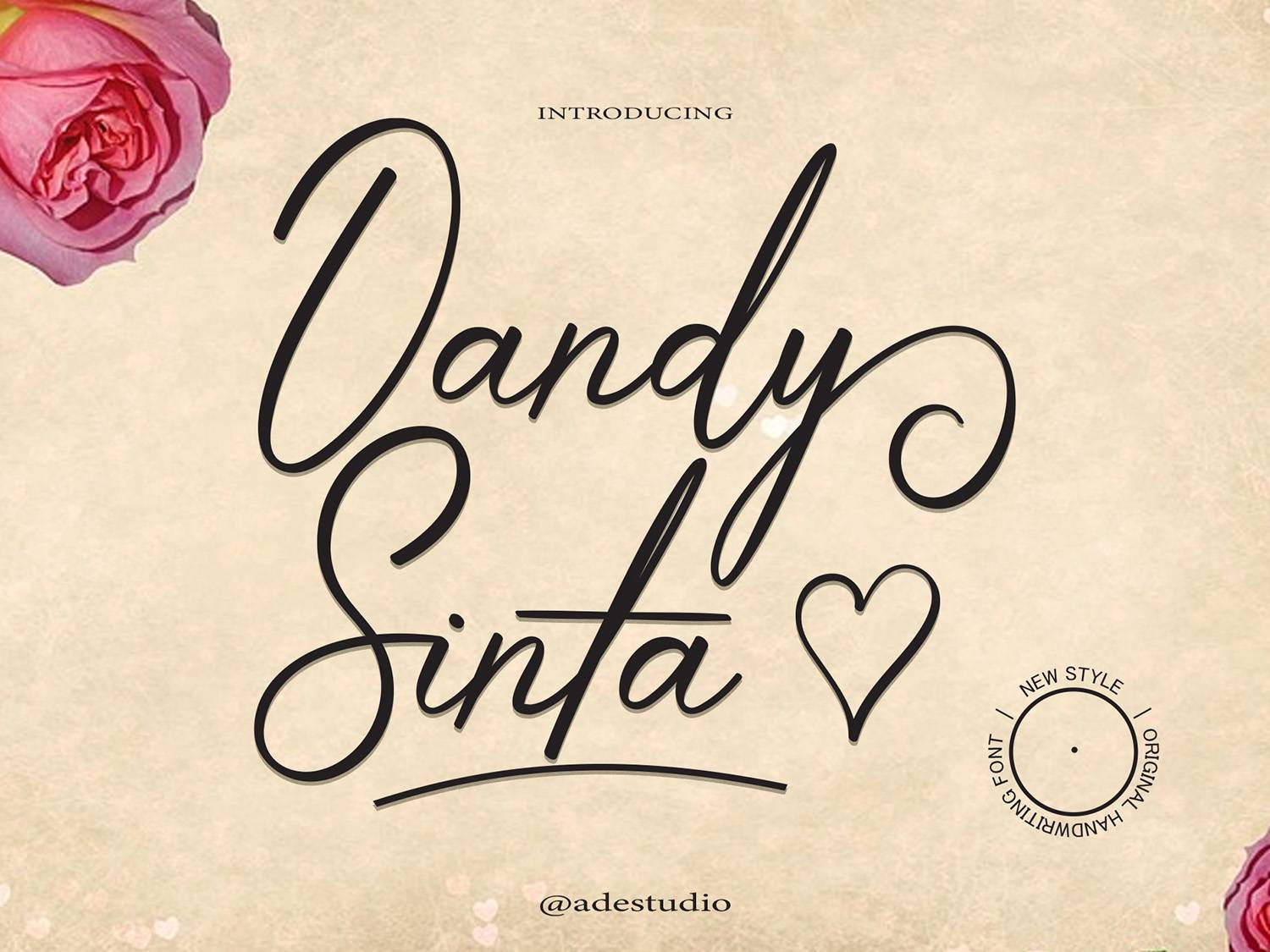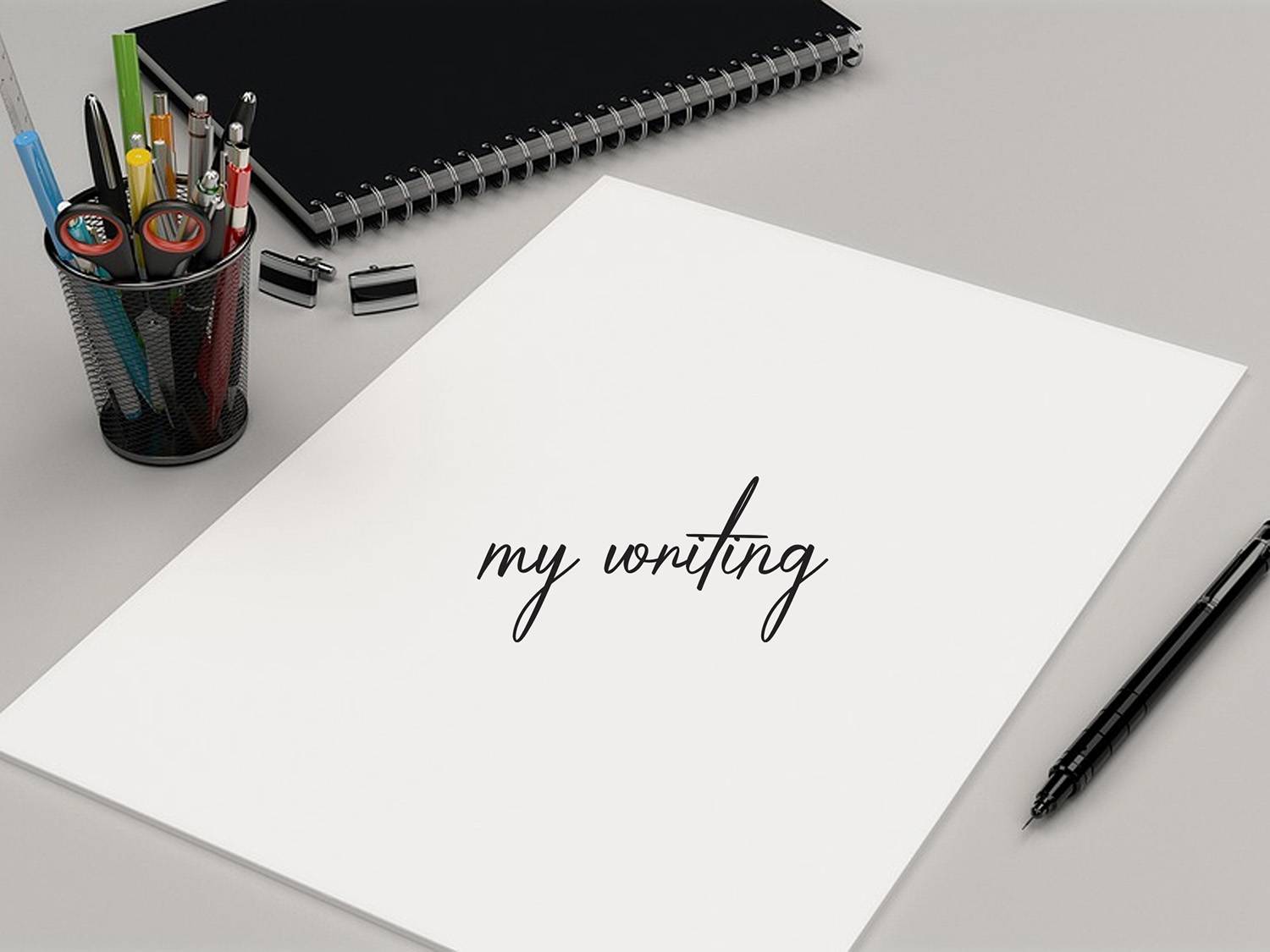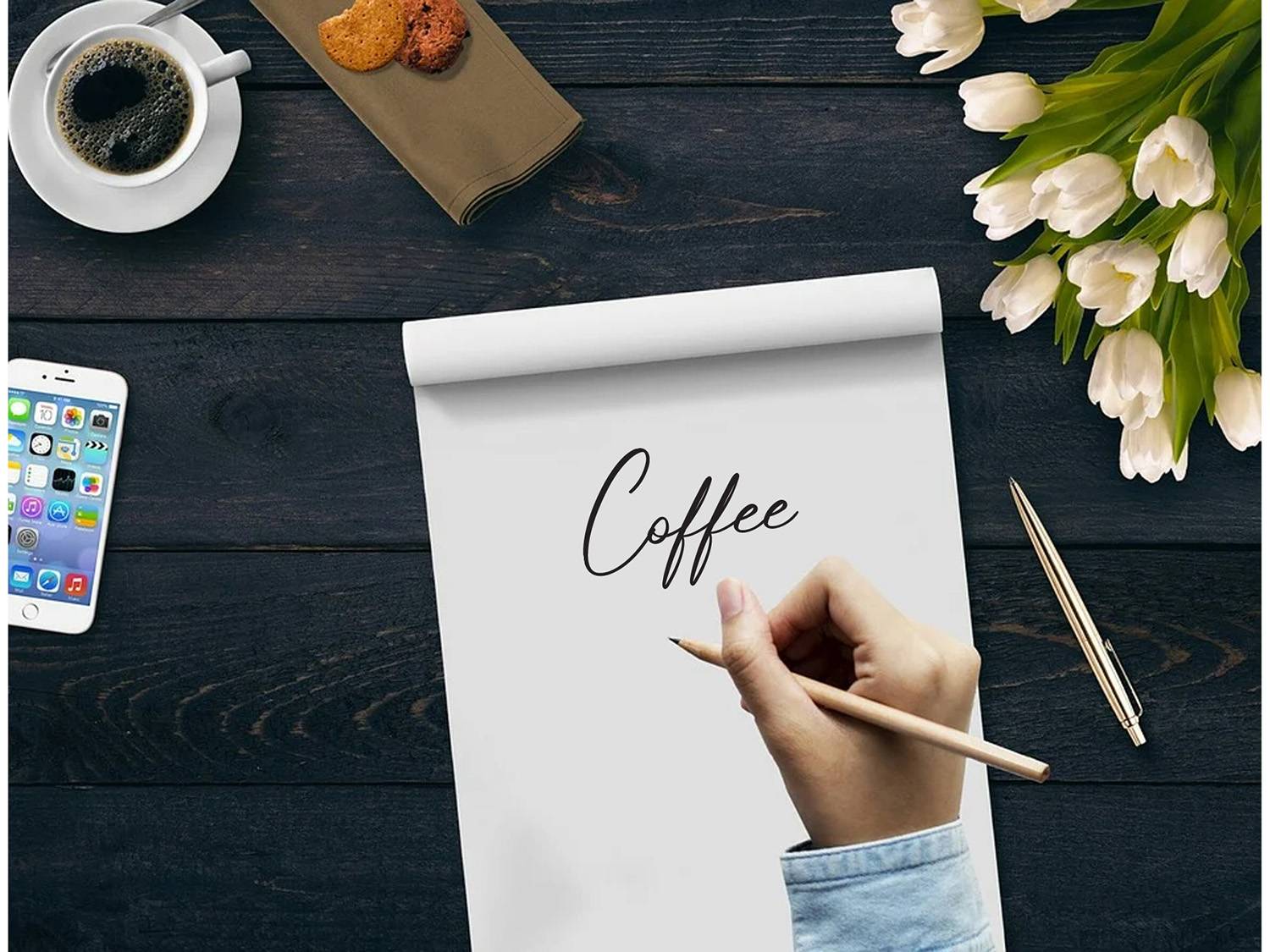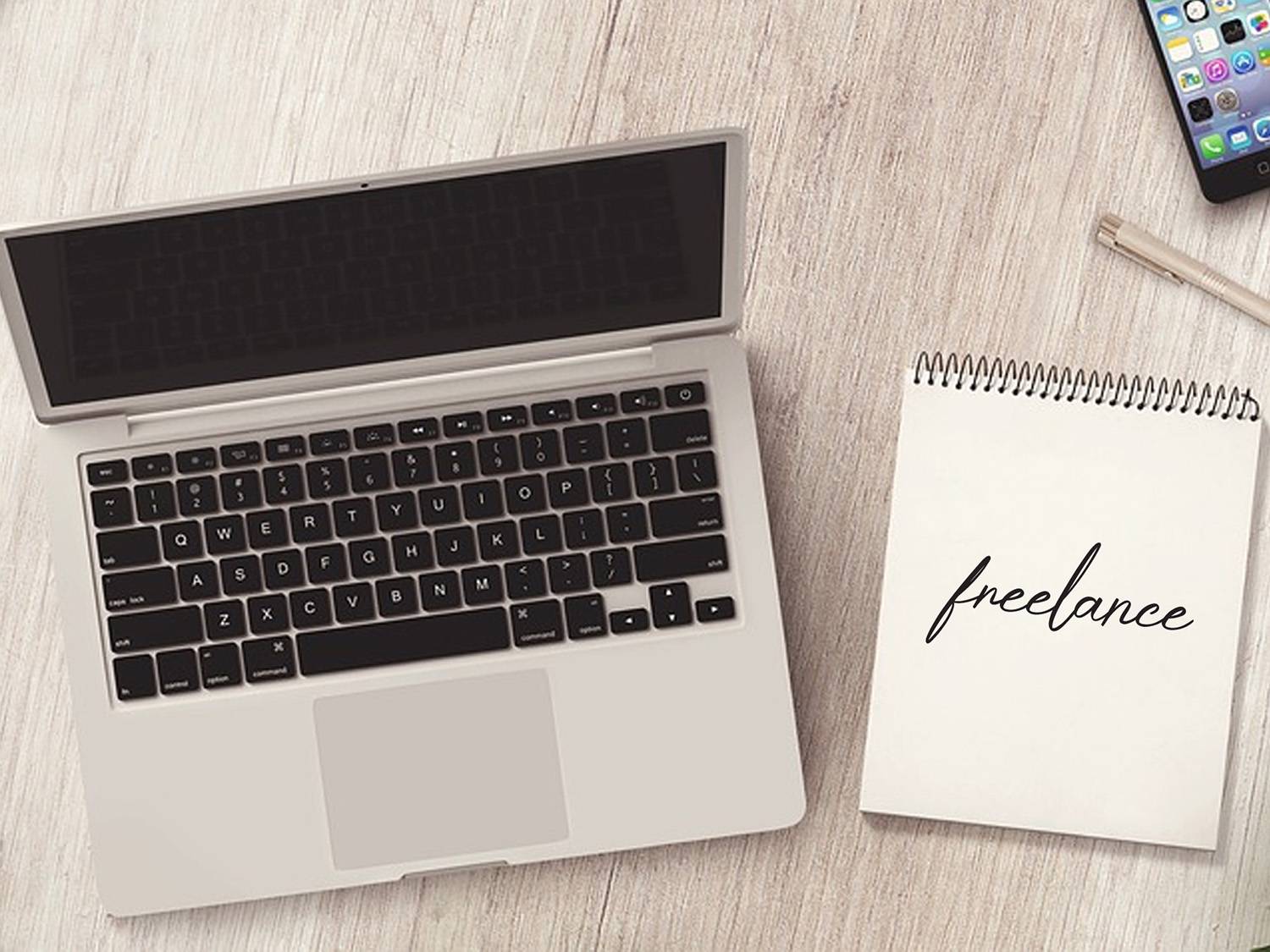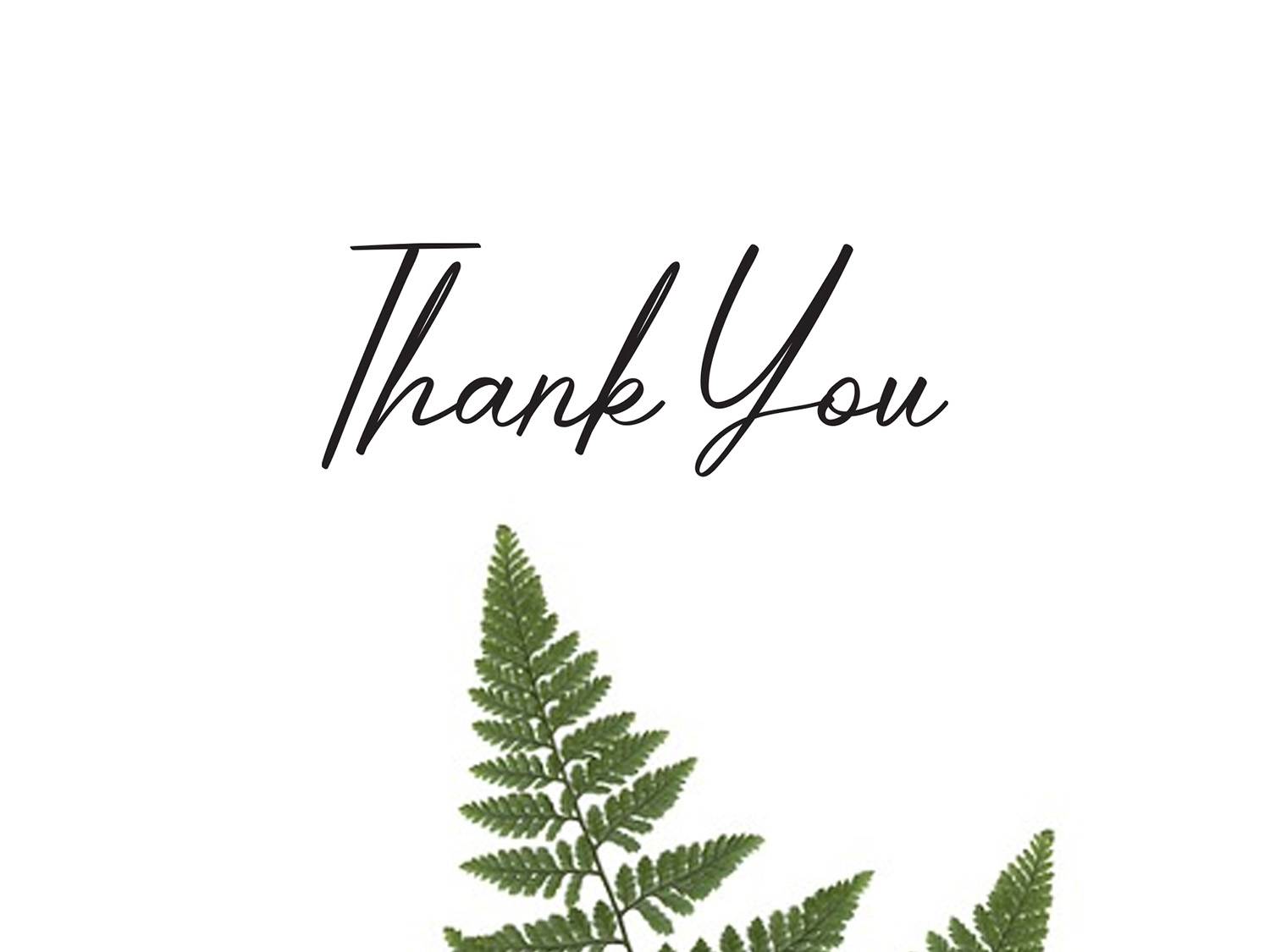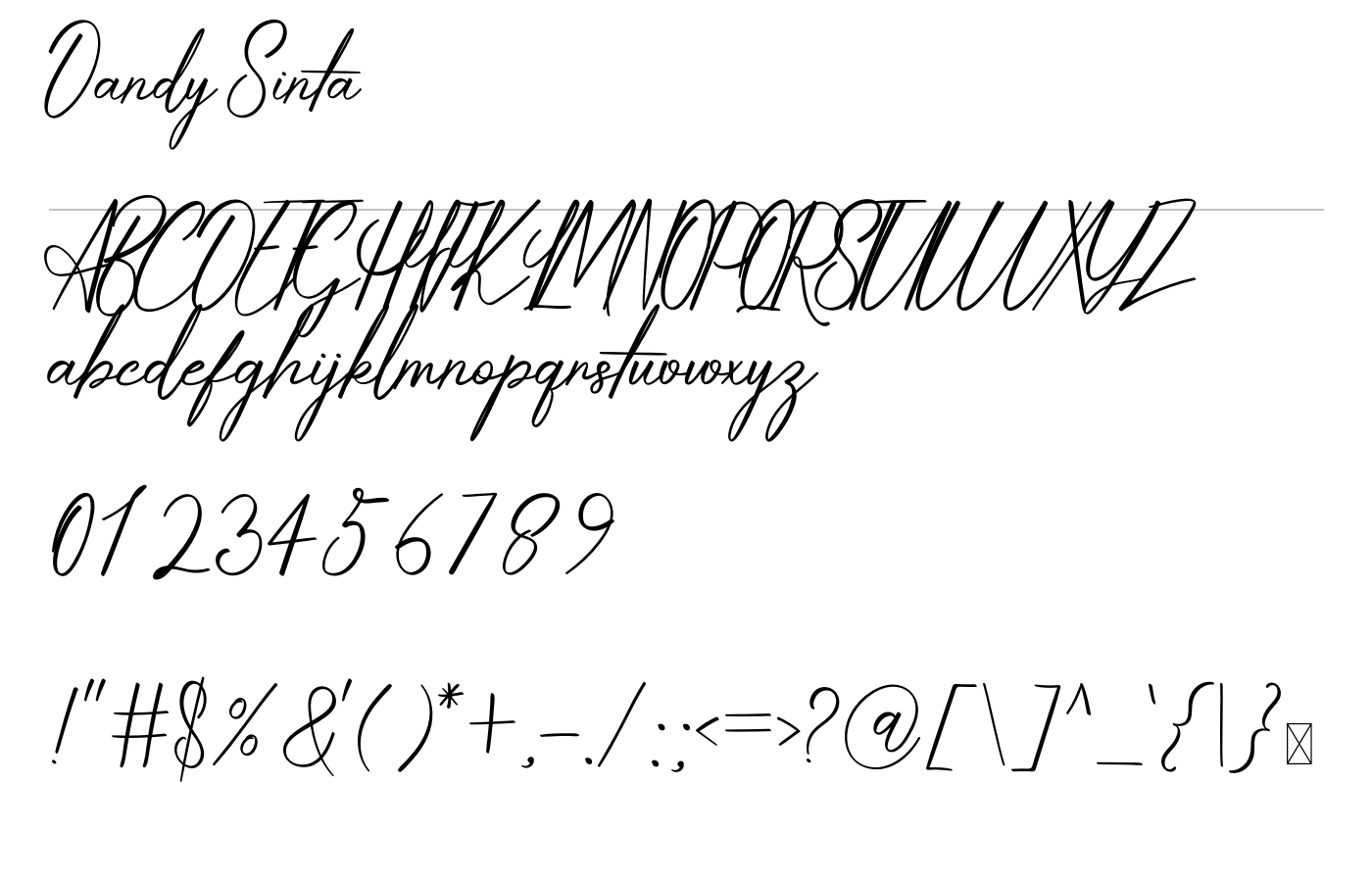
Dandy Sinta is a delicate, handwritten script font characterized by its thin, elegant strokes and smooth, flowing letterforms. Its slender, slightly slanted style conveys a sense of sophistication and charm, making it an excellent choice for invitations, branding, and creative projects that benefit from a personal, graceful touch. This font’s refined personality suits fashion, lifestyle, and boutique brands, as well as headers or decorative text where a stylish, handwritten feel is desired.
Dandy Sinta Font
About Dandy Sinta Font